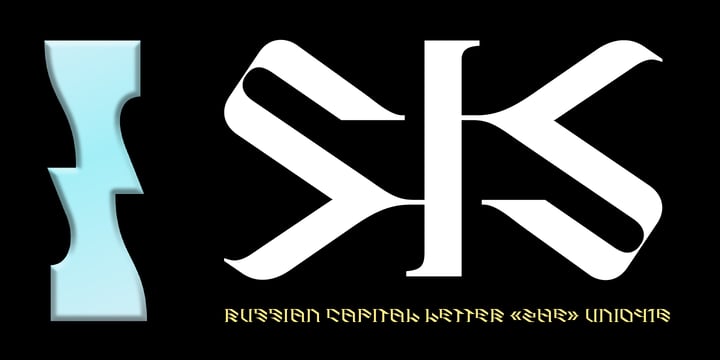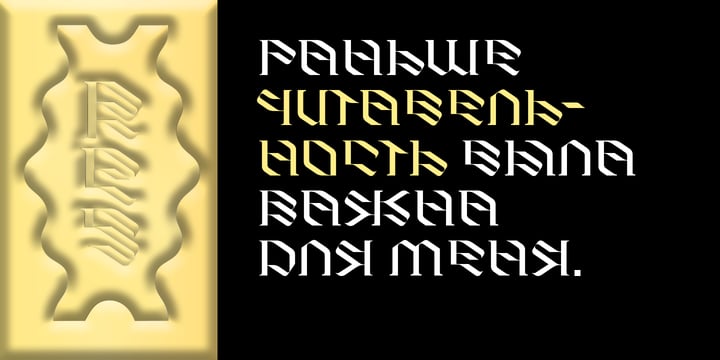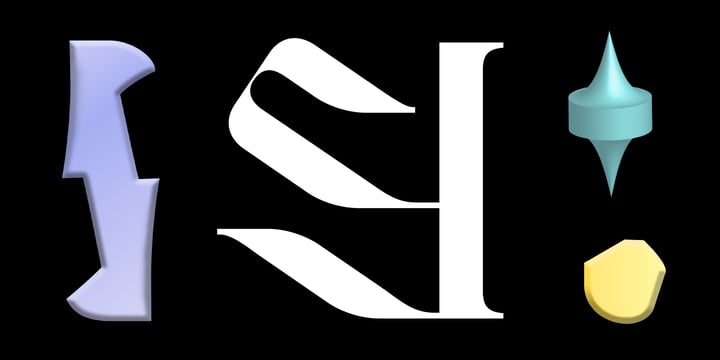
Eskos Display
by Pesotsky Victor
The Eskos Display Font Family was designed by Victor Pesotsky and published by Pesotsky Victor. Eskos Display contains 1 styles. More about this family
Eskos Display is a bright and eye-catching headline set. It is designed specifically to attract attention and be the base of the composition. It is deliberately diagonal and gives a sharp oblique texture to the texts.
Such an exciting font will be perfect for posters, headlines on media sites or magazines, and it can also be the base for a corporate identity.
The font supportsBasic Latin, Cyrillic and more than 100 languages all together.
Eskos Display was designed by Viktor Pesotsky.
Designers: Victor Pesotsky
Foundry: Pesotsky Victor